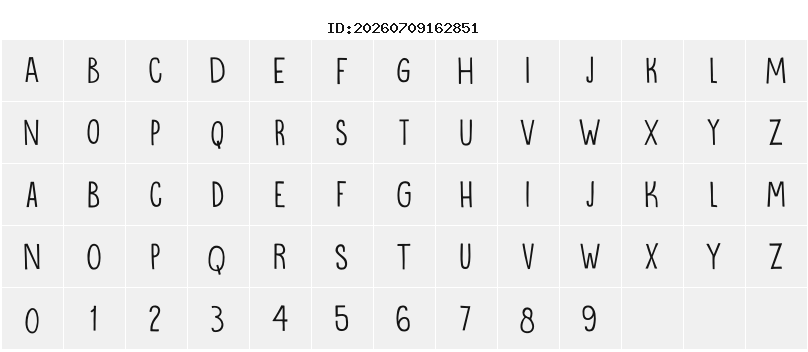
• Font Name: DK Oranjerie
• Designer: David Kerkhoff
• Manufacturer: David Kerkhoff
About DK Oranjerie.otf
DK Oranjerie.otf is a modern, elegant sans-serif font designed for ultimate readability and visual harmony. Perfect for branding, headlines, web design, and print materials.